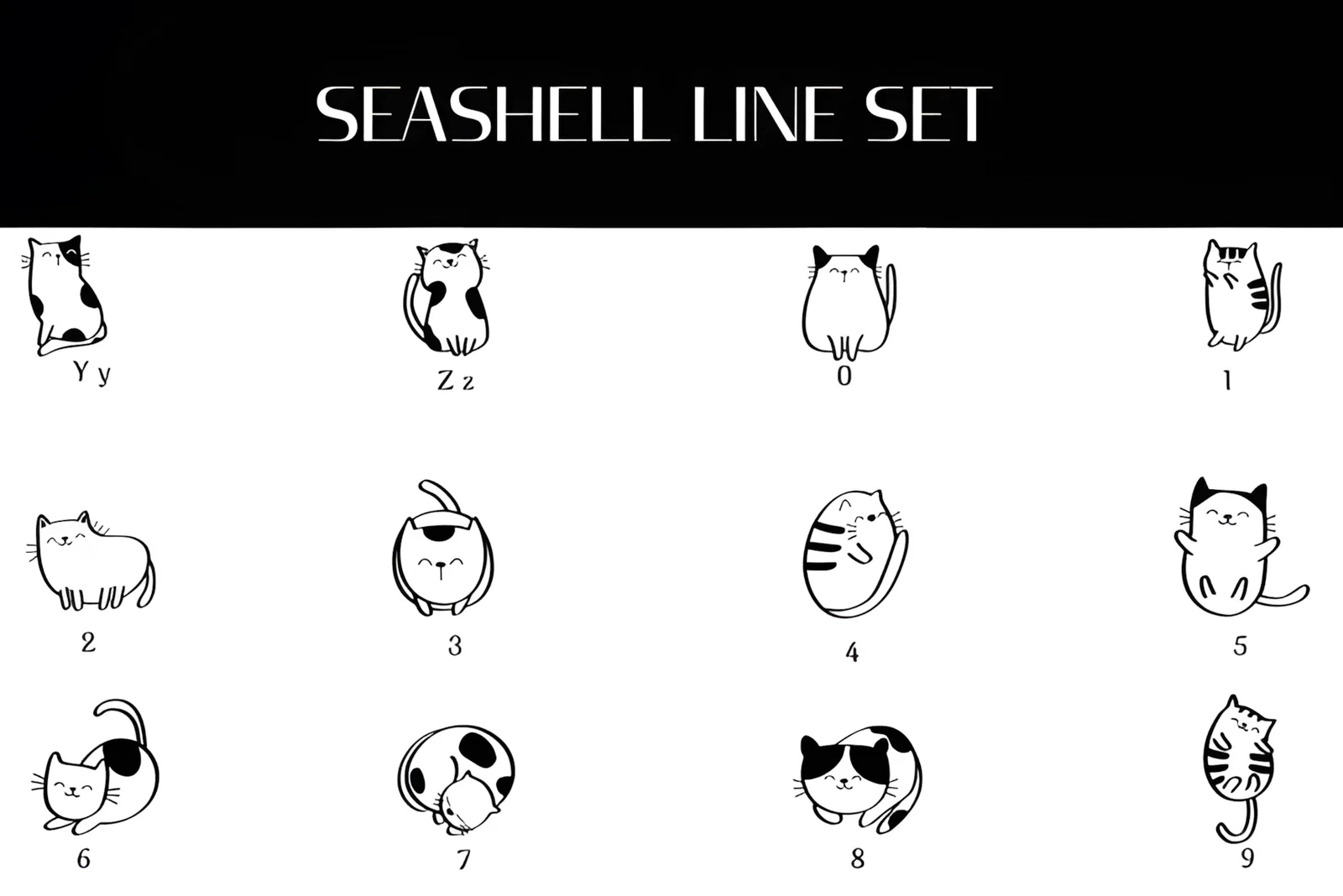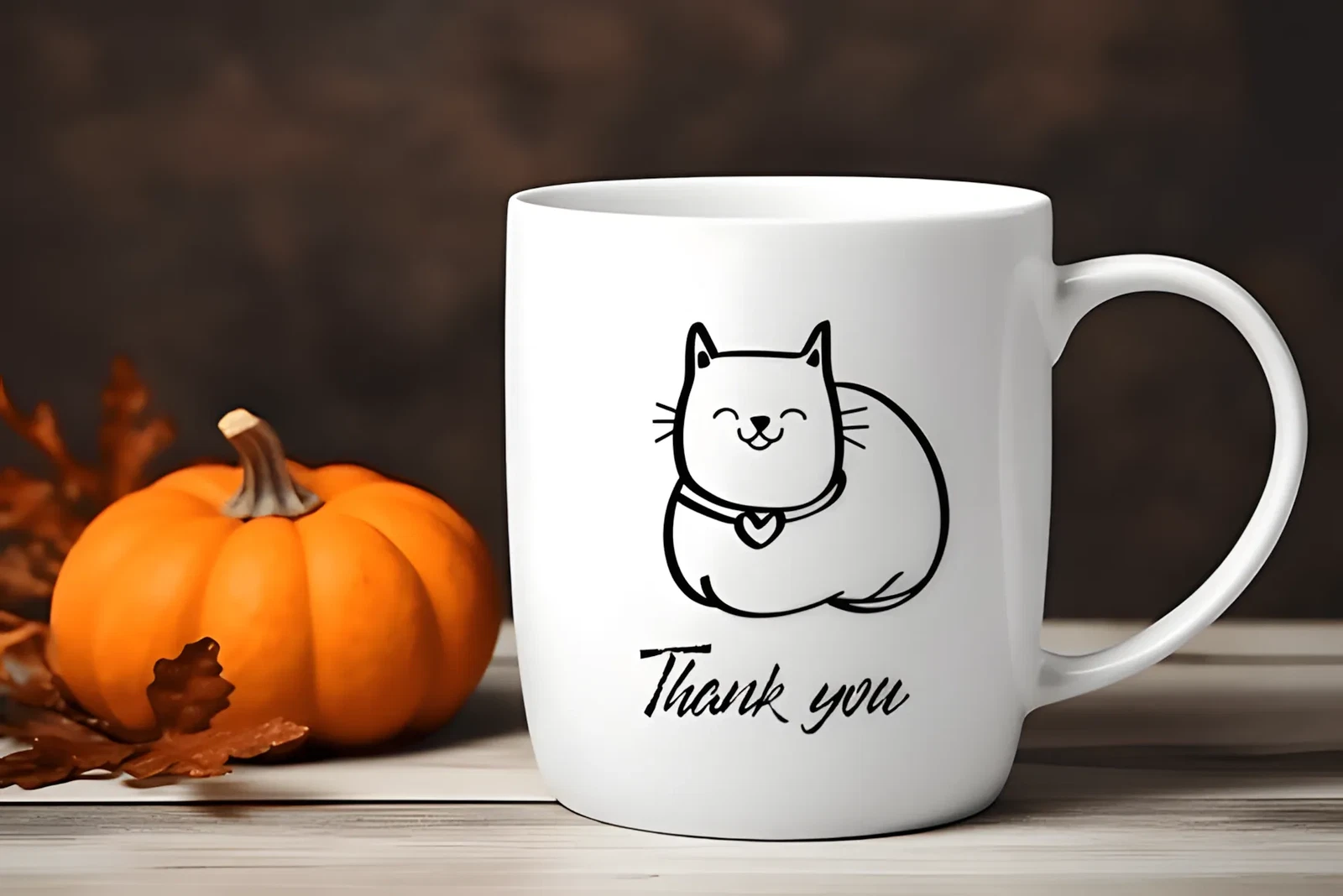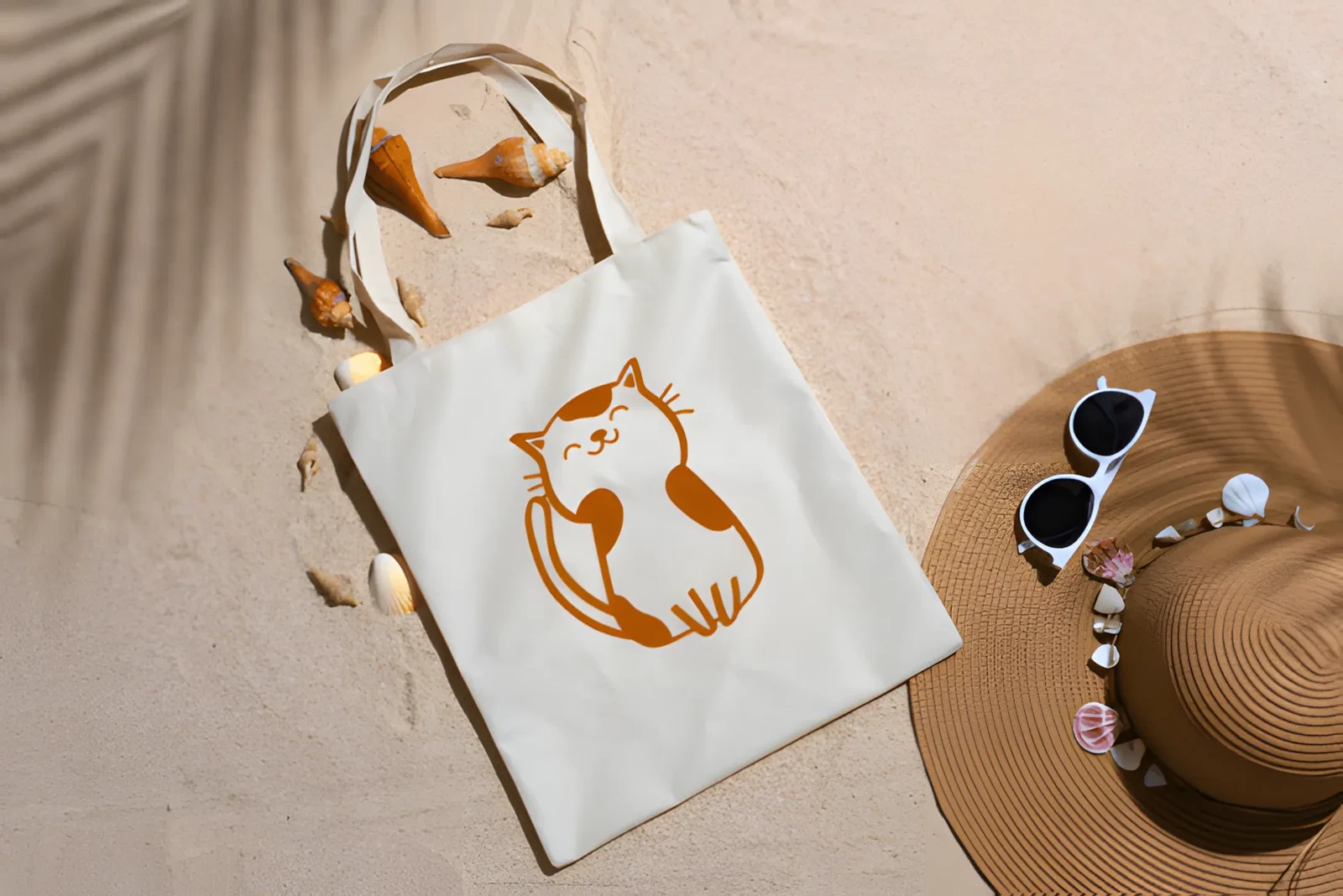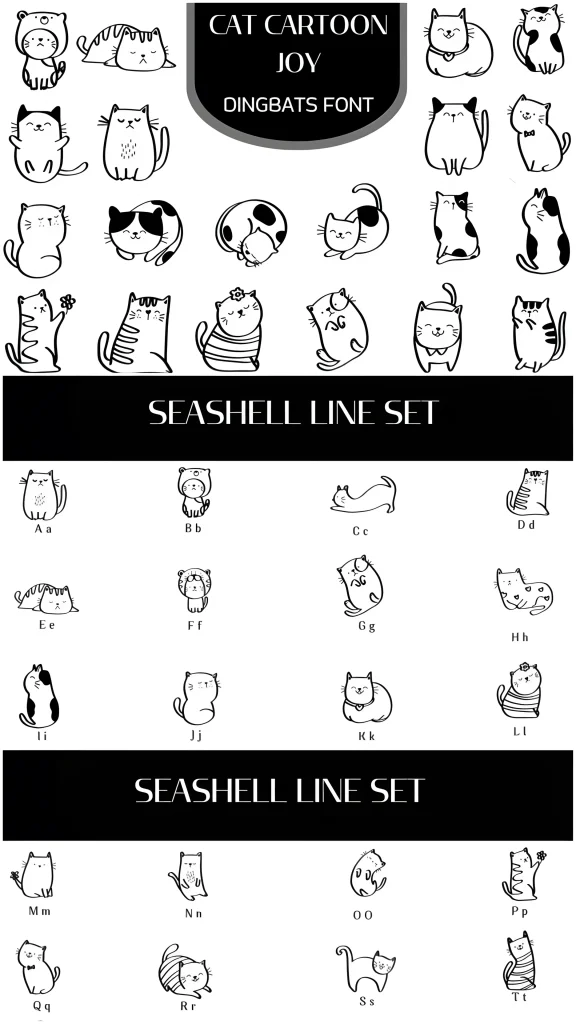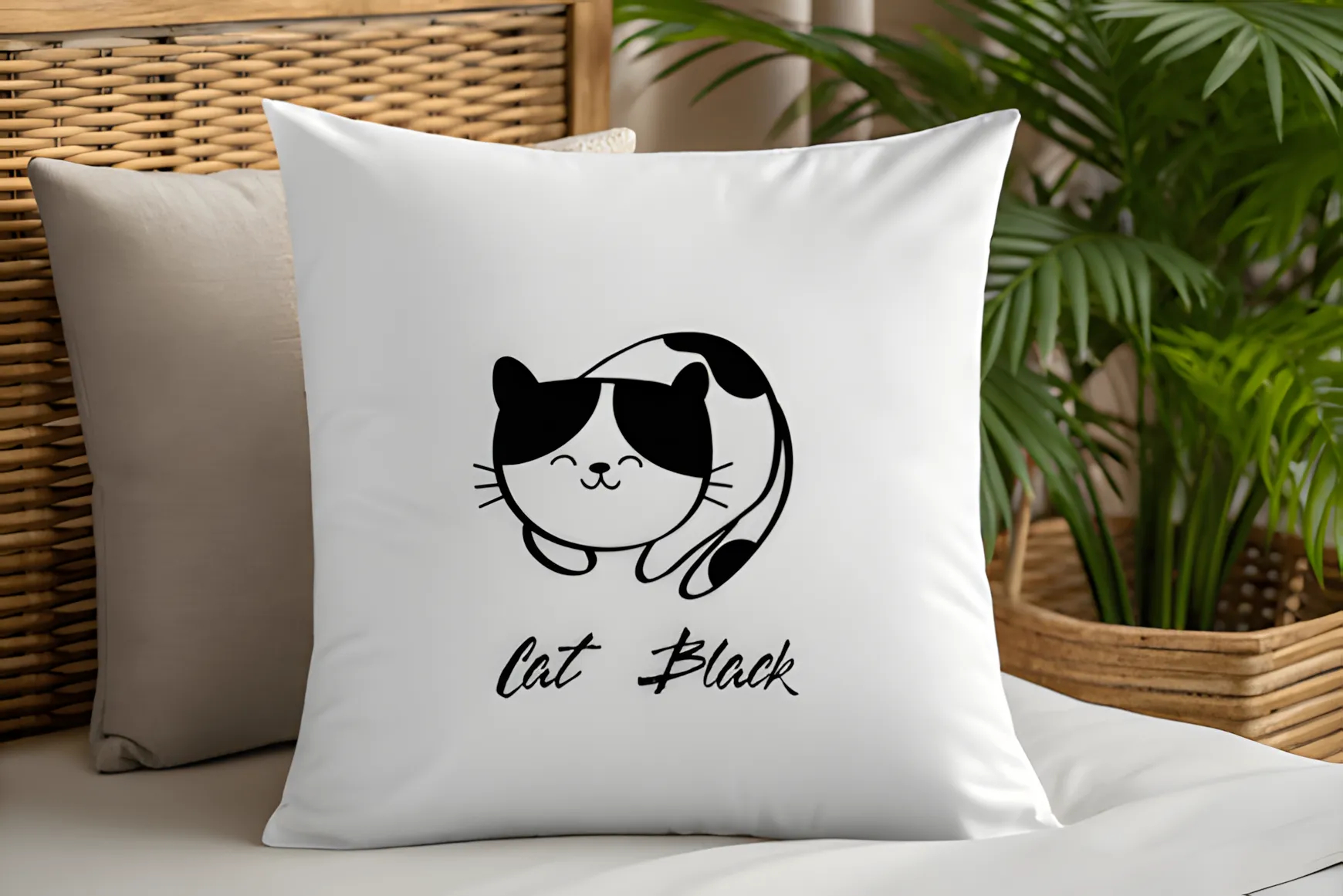
Some fonts are meant to deliver information, while others exist purely to create joy. Cat Cartoon Joy Font clearly belongs to the second group. This is a playful dingbats font filled with cute cartoon cat illustrations, designed to add personality, humor, and warmth to creative projects.
Instead of traditional letters, this font uses charming cat characters in different poses and moods. Each glyph feels expressive and full of character, making the font perfect for designs that aim to feel light-hearted, friendly, and visually engaging.
Visual Style and First Impression
Cat Cartoon Joy Font immediately creates a smile. The illustrations are hand-drawn in a clean, simple line style that feels soft and approachable. Each cat has its own expression and posture, giving the set a lively and joyful personality.
The style avoids heavy detail, which keeps the icons clear and easy to recognize even at smaller sizes. The balance between simplicity and expression makes the font usable across many formats without feeling cluttered.
The overall impression is cute, playful, and full of charm.
A Dingbats Font Built Around Cat Illustrations
This font is designed as a dingbats typeface, meaning its primary function is to display icons rather than text. Each character represents a different cat illustration, allowing designers to place them like graphic elements inside layouts.
The set includes a wide variety of poses and emotions, which makes it easy to mix and match icons for storytelling or decorative purposes. Because all illustrations follow the same visual style, they work well together in a single design.
This makes the font feel more like a cohesive illustration pack than a traditional typeface.
Designed for Cute and Playful Projects
Cat Cartoon Joy Font is ideal for projects that aim to feel fun, friendly, and informal. It fits naturally into designs related to:
- pets and animals
- children’s content
- cheerful branding
- personal creative projects
The cat theme gives it strong emotional appeal, especially for cat lovers and audiences that enjoy kawaii or cartoon aesthetics.
Practical Design Applications
Stickers, Icons, and Decorative Elements
One of the strongest uses for Cat Cartoon Joy Font is creating stickers and decorative icons. Each glyph works perfectly as a standalone graphic element.
It is well suited for:
- planner stickers
- digital icons
- decorative dividers
- cute visual accents
Because the illustrations are consistent in style, designs stay cohesive even when multiple icons are used together.
Journals, Diaries, and Notes
The playful nature of this font makes it a great fit for personal projects like journals and diaries. Cat icons can be used to mark sections, decorate pages, or add visual interest to notes.
This works especially well for:
- digital planners
- bullet journals
- printable notebooks
The font helps make everyday writing feel more enjoyable.
Greeting Cards and Gifts
Cat Cartoon Joy Font also works beautifully in greeting cards and gift designs. The illustrations add warmth and personality without needing extra artwork.
It fits well for:
- birthday cards
- thank-you notes
- personalized gifts
- mugs and stationery
The font helps create designs that feel thoughtful and handmade.
Social Media and Digital Content
On digital platforms, cat illustrations naturally attract attention. This font works well for:
- social media posts
- story highlights
- blog graphics
- digital content decoration
The simple line style remains clear on screens and adapts well to different sizes.
Readability and Usage Notes
As a dingbats font, Cat Cartoon Joy Font is not meant for typing sentences. It is designed to be used as:
- icons
- decorative graphics
- visual symbols
Spacing and placement are important. Treating each glyph like an illustration rather than a letter helps maintain clarity and visual balance.
The simple outlines cut cleanly and remain recognizable on physical products.
Emotional Tone and Design Feel
The emotional tone of Cat Cartoon Joy Font is cheerful, playful, and comforting. It feels light-hearted and friendly rather than polished or formal.
This makes it ideal for designs that aim to express joy, humor, and affection. The font naturally creates a positive emotional response, especially for animal-themed content.
- crafting and DIY projects
It is not intended for body text, but as a decorative dingbats font, it performs exactly as designed.
Cat Cartoon Joy Font turns simple illustrations into a playful visual language. With its expressive cat characters and clean line style, it brings warmth and personality into any design.
For creatives looking to add charm, humor, and a touch of joy to their projects, this font offers a simple and flexible solution. Used thoughtfully, Cat Cartoon Joy Font helps designs feel friendly, fun, and instantly engaging.